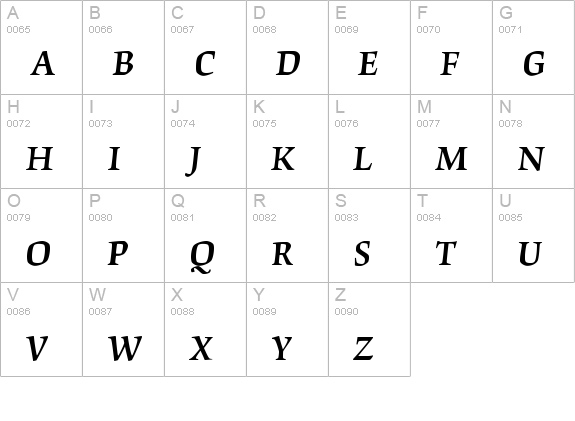
Origami Std Medium Italic is a balanced, medium-weight, italic variant in the Origami typeface family \xE2\x80\x94 well suited to sub-headlines, navigation, and balanced editorial work.
Origami Std Medium Italic is a modern and stylish font that adds a touch of sophistication to any design project. Its elegant slanted style exudes a sense of creativity and uniqueness, making it perfect for headings, titles, and other creative applications. The sleek lines and smooth curves of Origami Std Medium Italic give it a contemporary and professional look that will make your text stand out. The best part about Origami Std Medium Italic is that it is completely free to download. You can easily access this high-quality font at FontsMarket.com, where you can enhance your projects with this versatile and eye-catching typeface. Whether you're designing a website, creating a flyer, or working on a branding project, Origami Std Medium Italic is sure to make a bold statement and leave a lasting impression. Download it now and elevate your designs with this free and stylish font.